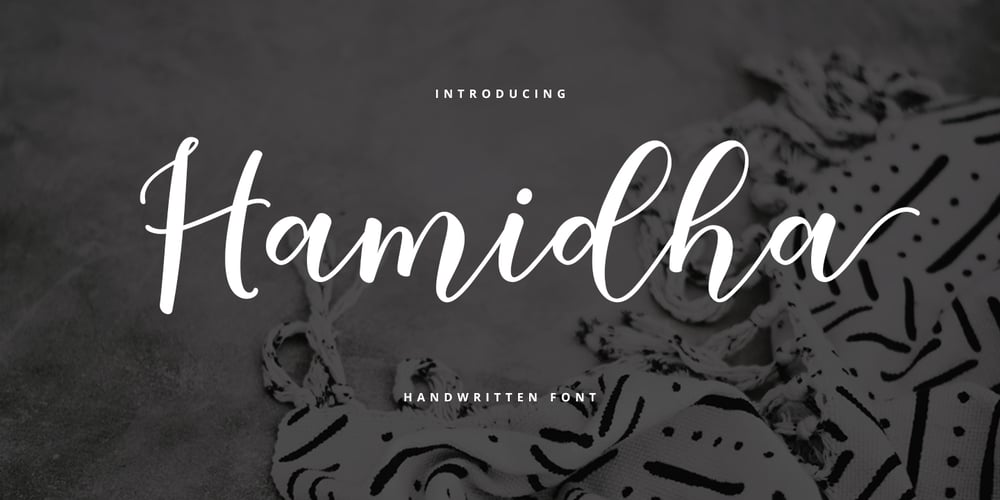
Hamidha Script Font Family was designed by khaidir and published by Gatype. Hamidha Script contains 1 styles and family package options. Hamidha is suitable use for market design developed at this time, this font has a model Trendy, natural and gentle, with this font you can take advantage of the opportunity in every moment of one wonderful way to highlight the celebration of the feast of your best, because this font will be advocates for purposes such as wedding invitations, party, graduation, birthday, gathering, etc.you need a program that supports Adobe Illustrator CS, Adobe Indesign & CorelDraw X6-X7, Microsoft Word 2010 or a later version.How to access all alternative characters using Adobe Illustrator:https://www.youtube.com/watch?v=XzwjMkbB-wQ Hamidha is coded with PUA Unicode, which allows full access to all additional characters without having to design any special software. Mac users can use Font Book, and Windows users can use Character Map to view and copy any additional characters for pasting into your favorite text editor / application.How to access all alternative characters, using the Windows Character Map with Photoshop:https://www.youtube.com/watch?v=Go9vacoYmBw